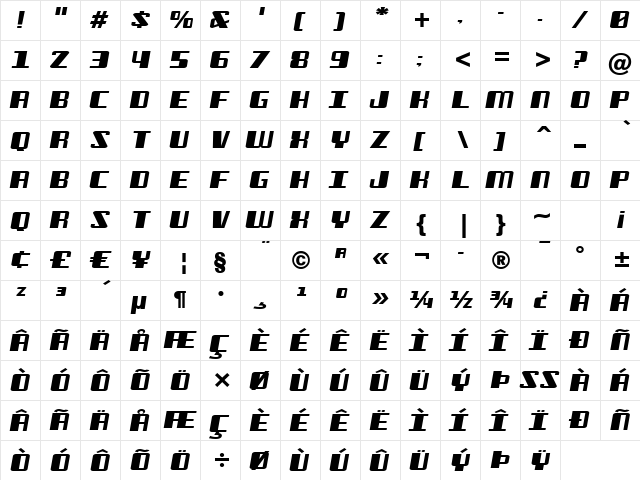
Freezer BTN Wide Oblique
Design Context for Freezer BTN Wide Typeface
Freezer BTN Wide is a composed and adaptable typeface that performs quietly and consistently across a wide range of design contexts. Its italic angle brings a sense of urgency and motion to the letterforms.
Pro Tip: Use Freezer BTN Wide for emphasis, pull quotes, and subheadings where its slanted energy can add rhythm to the layout.